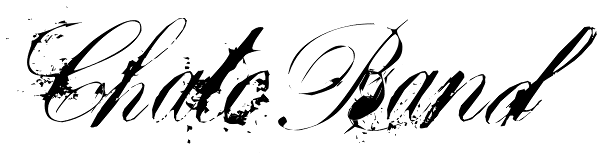
Chato Band
Chato Band is a beautiful script font, originally created as a custom project for a music label. With slight imperfections between characters, it has a unique look, with ink drawn and vector elements, a lot of work and time devoted to each...